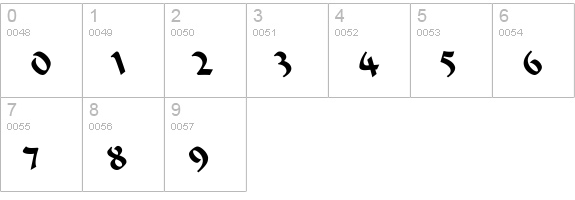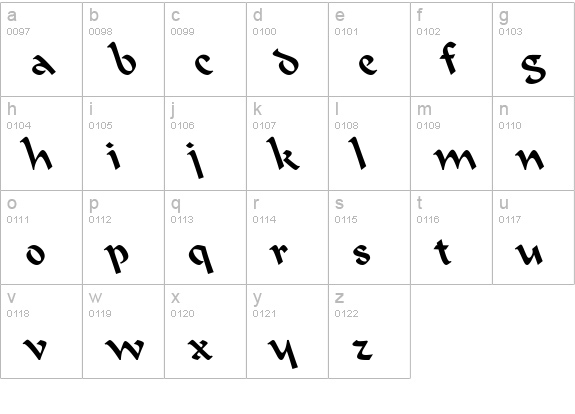
Formalist Script Regular Lefty Font Details
Formalist Script Regular Lefty is the standard, neutral variant in the Formalist typeface family \xE2\x80\x94 well suited to general body text, paragraphs, and standard typographic work.
Formalist Script Regular Lefty font is a stunning and elegant typeface designed for those who appreciate the artistry of calligraphy. Its flowing lines and intricate details give any project a touch of sophistication and refinement. The graceful curves and precise strokes of this font make it perfect for formal invitations, luxury branding, and elegant designs. The Formalist Script Regular Lefty font is not only beautiful but also practical for left-handed individuals, as it is specifically crafted to accommodate their unique writing style. Whether used for wedding invitations, business cards, or personal correspondence, this font adds a touch of class to any project. Best of all, Formalist Script Regular Lefty font is available for free download at FontsMarket.com. This means you can easily access this exquisite font and elevate your designs without any cost. Don't miss out on the opportunity to add a touch of elegance to your projects with this stunning typeface.